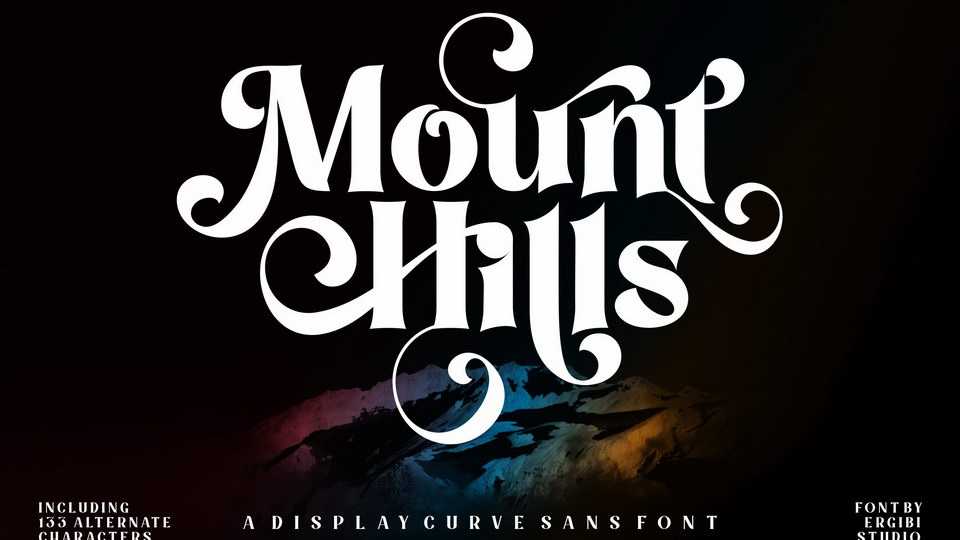
Download Mount Hills font, an incredibly luxurious display typeface. Masterfully designed to become a true favorite, Mount Hills font has the potential to bring each of your creative ideas to the highest level.
Designer: Ergibi Studio